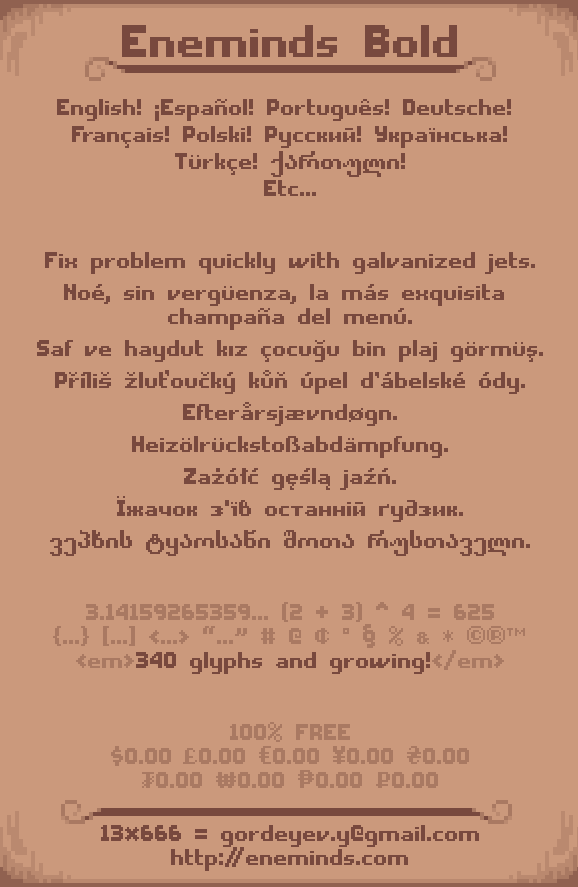
To me, it looks like a computer font from the past, updated fro today's Eastern needs, so: bravo!
Your font is so beautiful ! I will definitely use it when I have a project that need font. Thank for publish it under Creative Commons, and amazing pixel art !